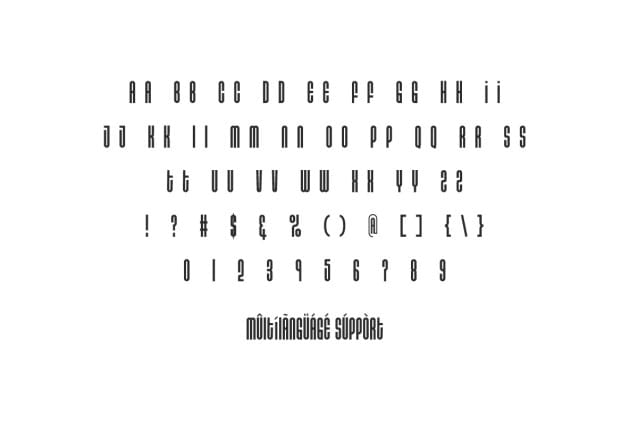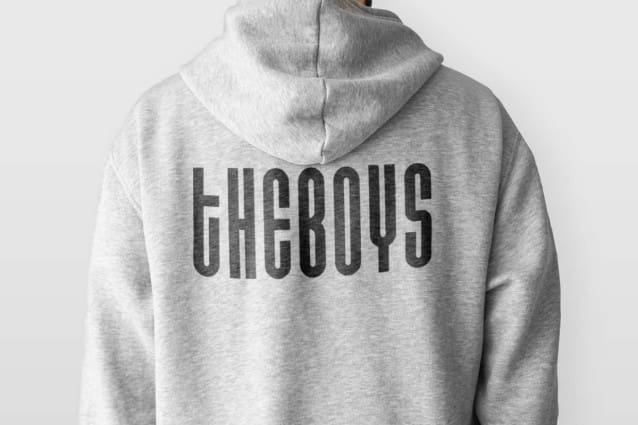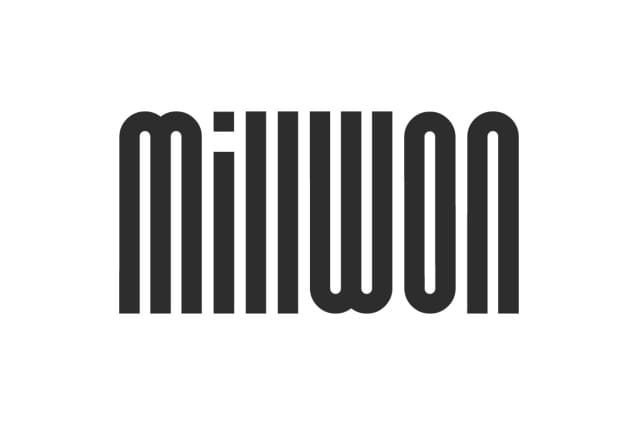
Millwon Font
Millwon Font is a modern and playful display font with a unique curved edge on each character. It will be able to elevate your designs to high level, such as billboard, brand logo, brochure, business card, invitation, label, magazine catalog, mockup design, poster, packaging design, quote, screen print, signage, stationery, sticker, title, website, etc.